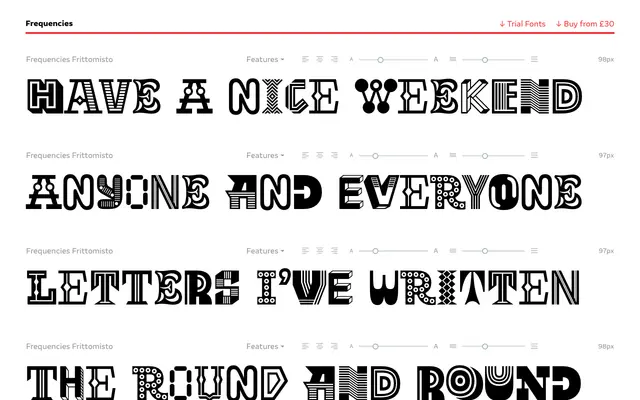
Frequencies
Typeland · Vaibhav Singh · 2022
A single decorative Latin face by Vaibhav Singh, drawn from children's handwriting collected for artist Oscar Murillo's 'Frequencies' archive project.
Originally designed for Oscar Murillo's 'Frequencies' archive, which gathered handdrawn canvases from school children around the world, the typeface translates that source material into a set of randomised decorative capitals. The style blurs the line between writing and drawing, with letterforms that carry a deliberate serendipity rather than a consistent underlying system. Available as a single style named Frittomisto, it is best suited to expressive display settings where that unpredictability is the point.
Classified as display due to its decorative uppercase-focused design with randomised letterforms derived from handdrawn children's canvases; not suited to body text and intended purely for expressive typographic use.